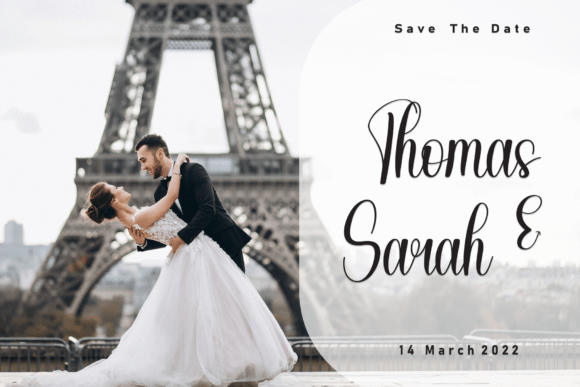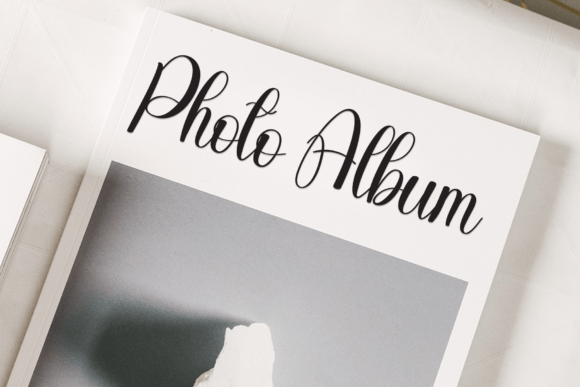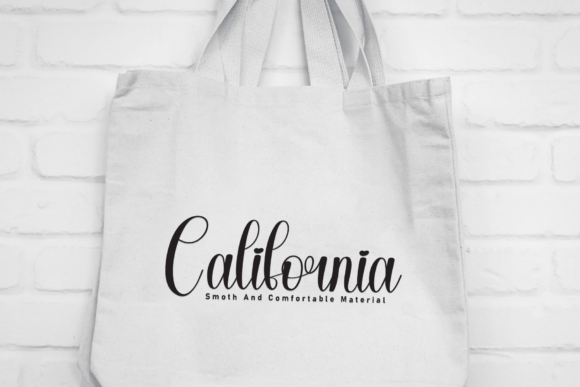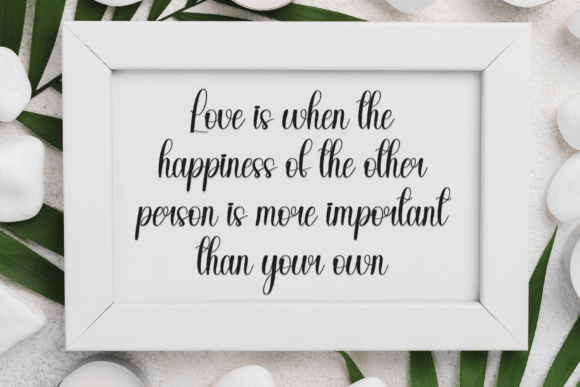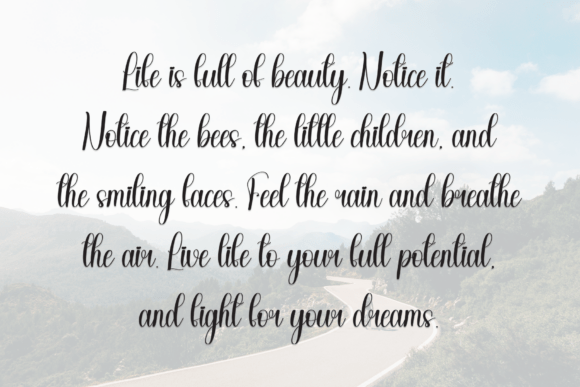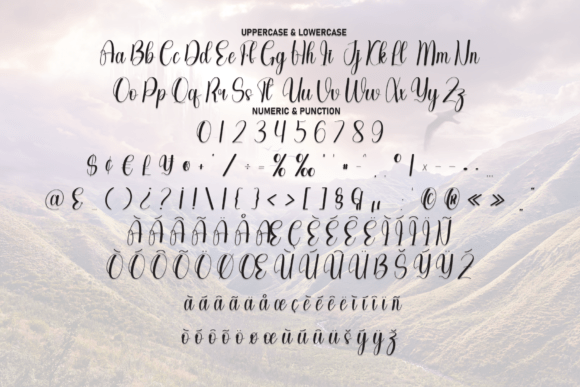
Discover the Enchanting World of Fantasy Font
Imagine yourself working on a wedding invitation project, searching for that perfect font to capture the essence of the special day. You’re scrolling through page after page of Google results, but nothing seems quite right. That was me, not too long ago. I was on a mission to find a font that would add a touch of magic to my design. And then, I stumbled upon Fantasy Font.
This handwritten display font has been a game-changer for me, and I’m excited to share its charm with you. With its warm and inviting tone, dotted with a sprinkle of whimsy, Fantasy Font is perfect for elegant wedding invites, heartfelt expressions in greeting cards, or any project that needs a touch of fun and vibrancy.
A Personal Review of Fantasy Font
- ✨ Unique Character: Fantasy Font has a distinct personality that sets it apart from other fonts. Its lively spirit delightfully elevates any design.
- ✅ Elegant and Whimsical: This font strikes the perfect balance between elegance and playfulness, making it suitable for a wide range of projects.
- 💕 Emotional Connection: Fantasy Font has a way of infusing joy and warmth into your designs, creating an emotional connection with your audience.
While Fantasy Font is an amazing addition to any design project, there are a few things to keep in mind:
- ⚠️ Legibility at Small Sizes: As with many script fonts, Fantasy Font can become a bit tricky to read at very small sizes. It’s best used at larger sizes, such as headings or titles.
- 🤔 Glyph Limitations: While Fantasy Font comes with a range of glyphs and stylistic alternates, it may not have every special character you need. Be sure to check the font’s capabilities before committing to a project.
The Designer Inspiration Behind Fantasy Font
While the true story behind Fantasy Font remains a mystery, it’s easy to imagine that its designer was inspired by the whimsical world of fantasy and fairy tales. Perhaps they wanted to create a font that would transport readers to a magical realm, where elegance and playfulness reign supreme.
Q: What type of projects is Fantasy Font best suited for?
A: Fantasy Font is perfect for elegant wedding invites, heartfelt expressions in greeting cards, or any project that needs a touch of fun and vibrancy.
Q: Is Fantasy Font suitable for body text?
A: While Fantasy Font is beautiful, it’s best used as a display font for headings or titles. For body text, consider a more legible font to ensure readability.